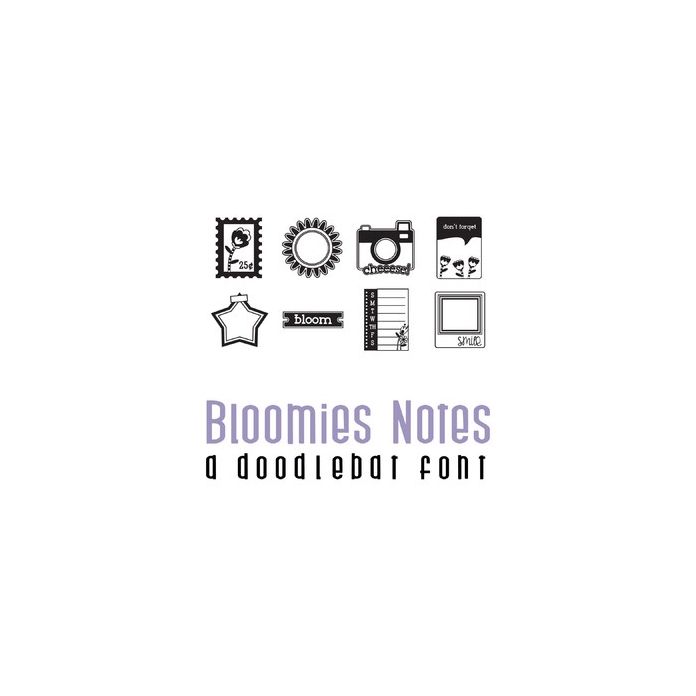
bloomies notes doodlebat font
Get 26 Bloomie styled notes, tags and frames are perfect for cards, crafts, decor, planner stickers, scrap book pages, gifts and more!